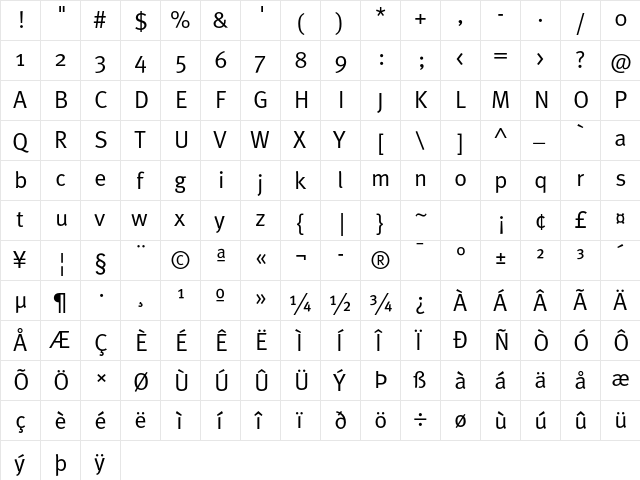
MetaPro-Normal Regular Font Preview
MetaPro-Normal Regular
MetaPro-Normal Regular Font Details
| Foundry | FSI Fonts und Software GmbH |
| Designer | Erik Spiekermann |
Design Context for MetaPro-Normal Typeface
MetaPro-Normal offers clean, dependable letterforms without strong stylistic allegiance, making it a practical choice for designers who need flexibility.
Pro Tip: Use MetaPro-Normal in both headline and body roles to test its range before committing to a single application.